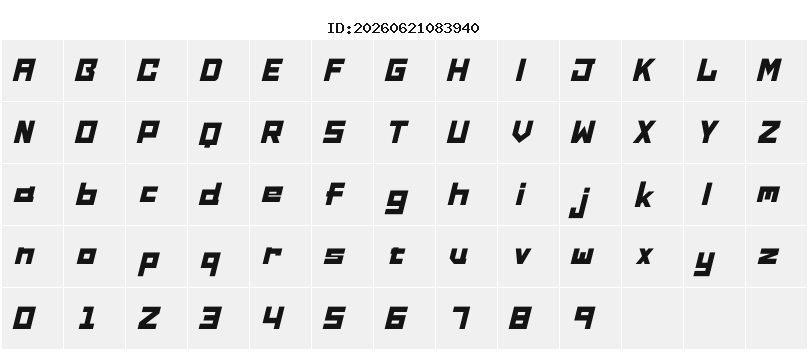
• Font Name: WhiteNT Bold
• Full Font Name: WhiteNT Bold
• Designer: Artyom Levanov
• Manufacturer: Artyom Levanov
About WhiteNT Bold.otf
WhiteNT Bold.otf is a modern, elegant sans-serif font designed for ultimate readability and visual harmony. Perfect for branding, headlines, web design, and print materials.